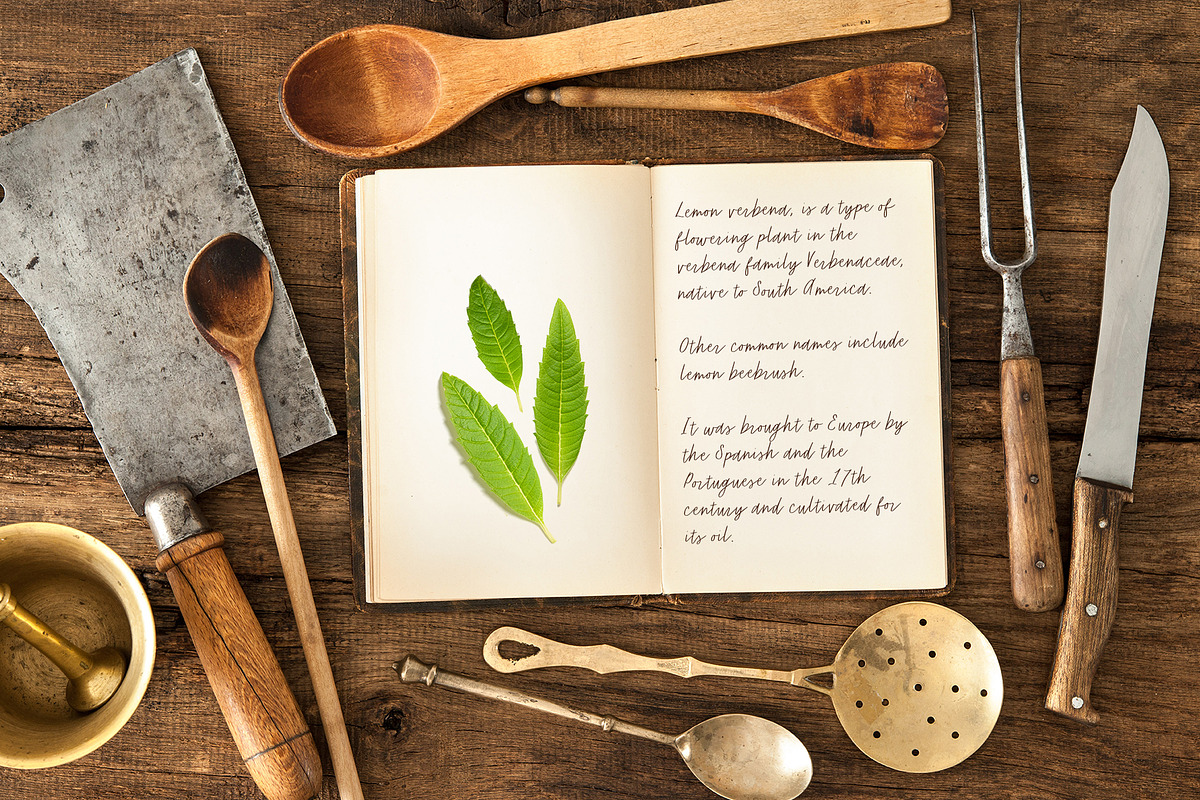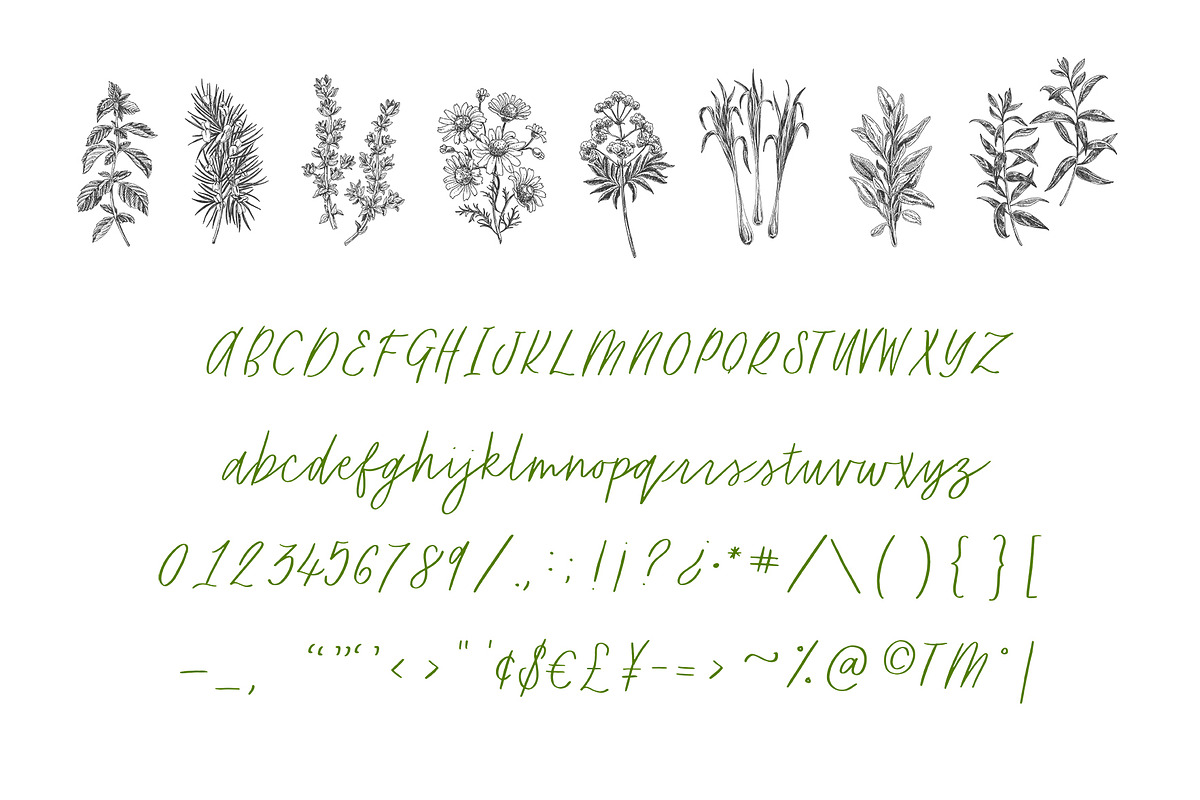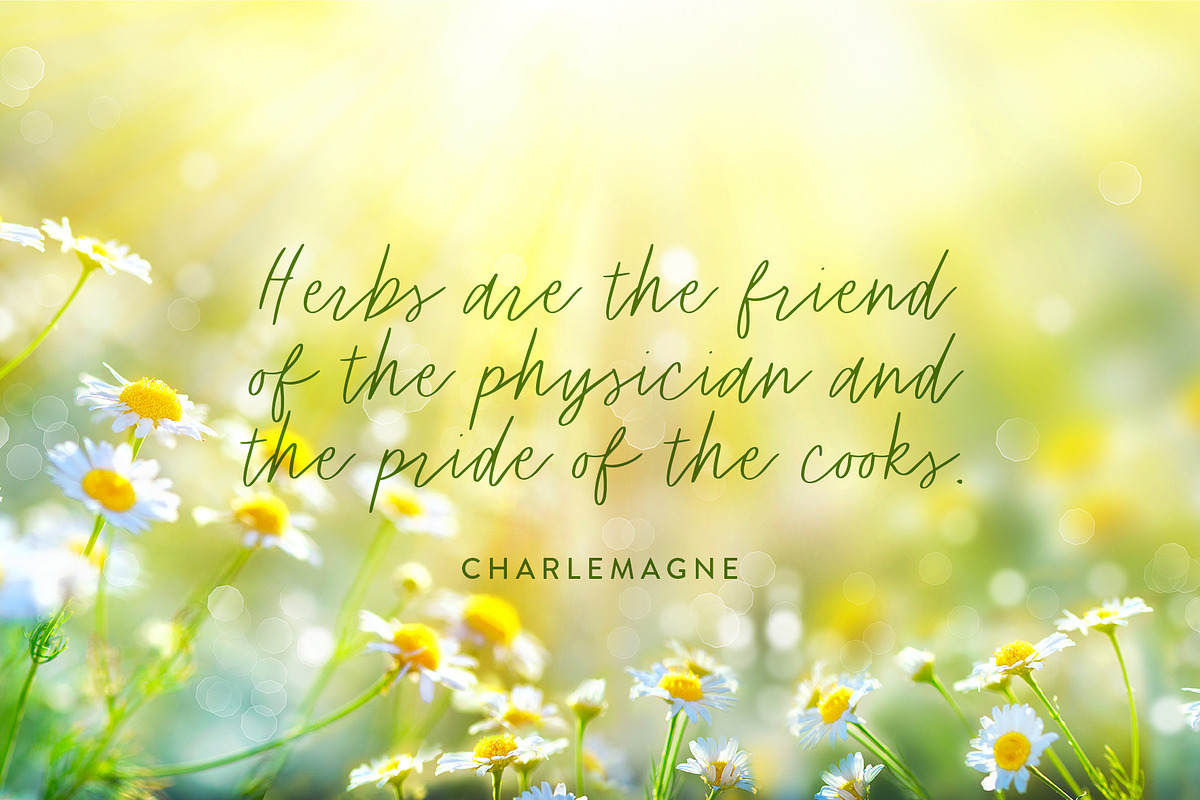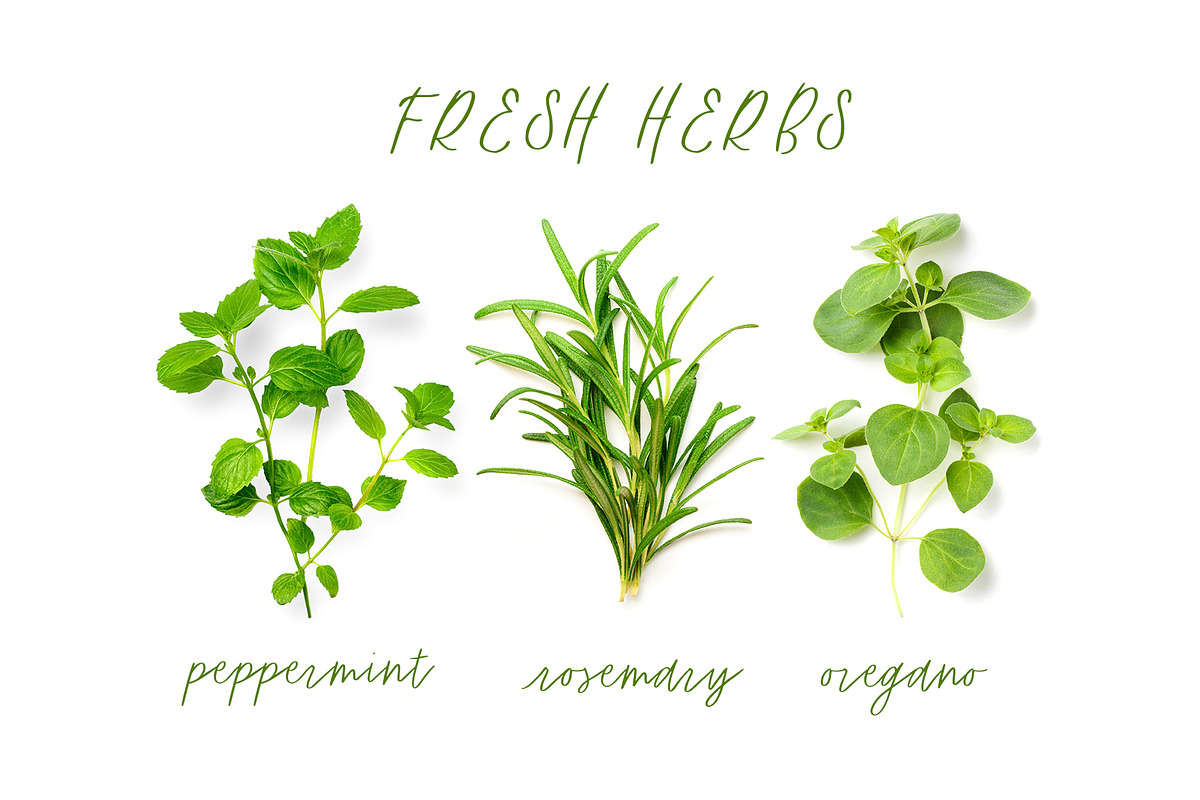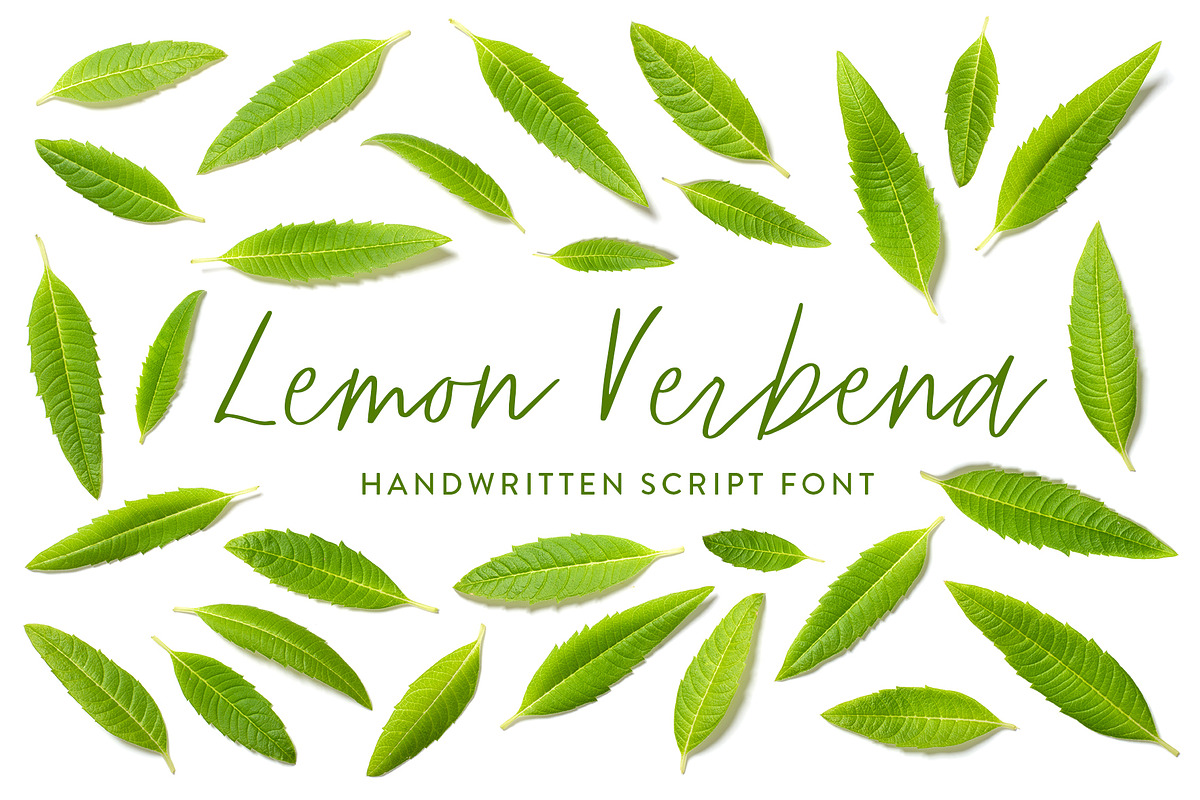
Lemon Verbena Handwritten Font
Introducing Lemon Verbena Handwritten Script font. A wonderfully whimsical font. Perfectly suited for a diversity of design projects, including logos, branding, wedding designs and social media posts.
Why Lemon Verbena Handwritten Font is worth a look
Lemon Verbena Handwritten Font by Susan Brand Design fits naturally into Branding, posters, packaging, typography.